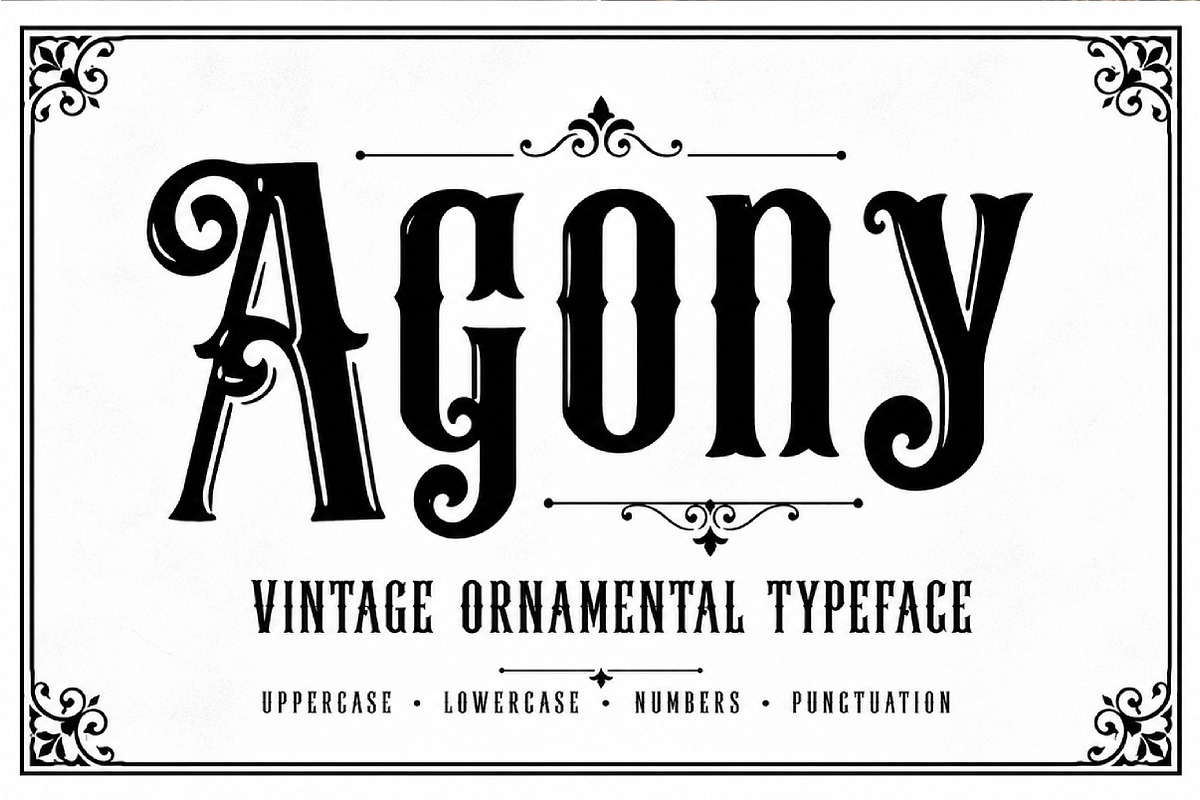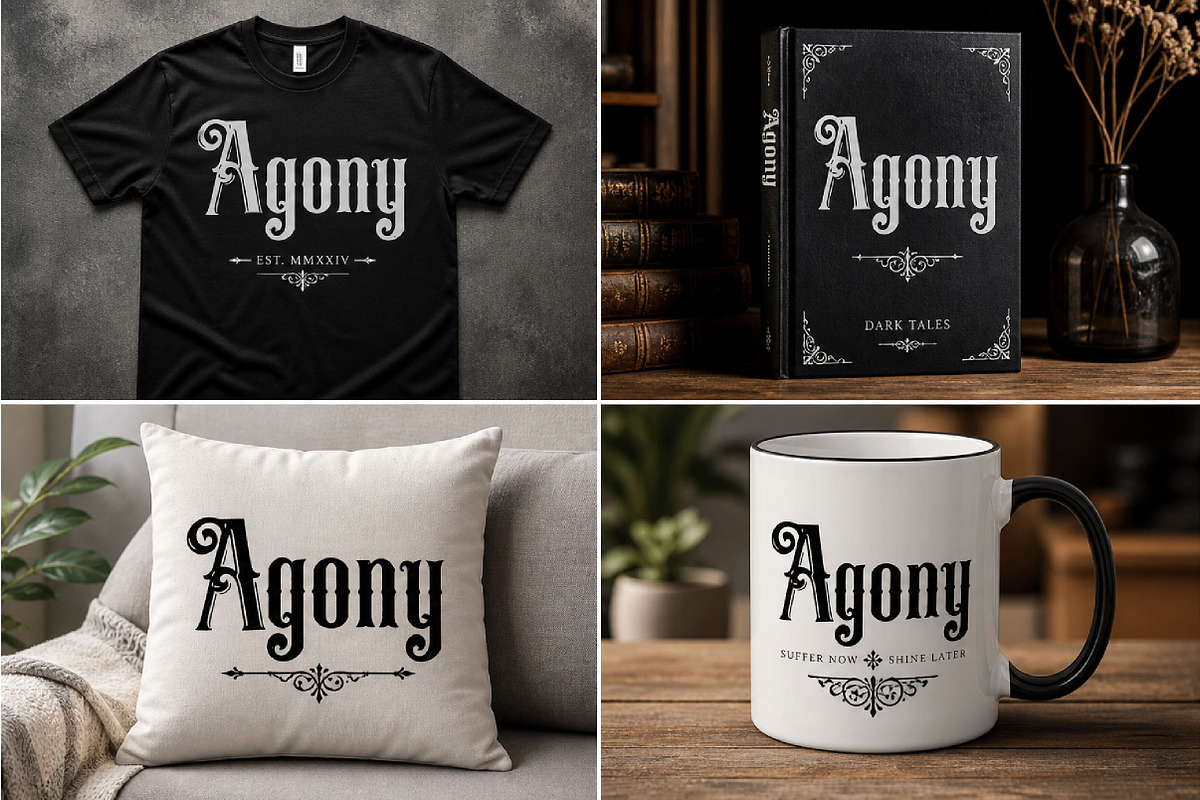
Agony
Agony – Vintage Gothic Decorative Font
Agony is a bold, dramatic, and vintage gothic display font, perfect for posters, logos, album covers, branding, and dark artistic projects.
Agony is a striking decorative display font inspired by vintage gothic and ornamental typography. With its bold letterforms, dramatic curves, and intricate serif details, this font creates a powerful and mysterious look that instantly captures attention.
Its strong gothic character makes Agony perfect for projects that need a dark, artistic, or vintage-inspired identity. Whether you are designing posters, album covers, branding, logos, packaging, tattoo-style graphics, or editorial headlines, this font helps your typography stand out with intensity and style.
The decorative swashes and classic structure add elegance while maintaining a bold and edgy personality. Suitable for both print and digital use, Agony is an excellent choice for designers who want a font that feels dramatic, vintage, and highly expressive.
Gothic and vintage designs
Posters and headlines
Album covers
Branding and logos
Packaging design
Tattoo-style graphics
Editorial titles
Dark-themed projects
Event and festival visuals
Statement display typography
Uppercase letters
Lowercase letters
Gothic decorative style
Bold and dramatic character
Ornamental serif details
Perfect for display use